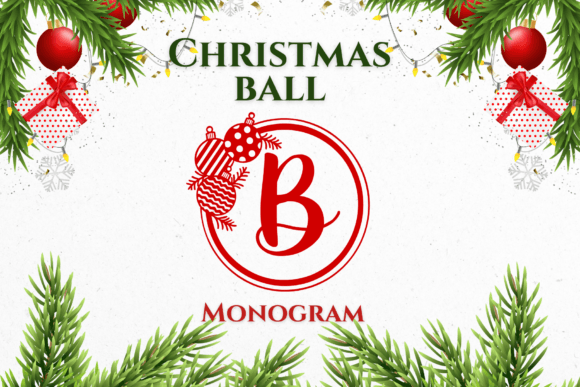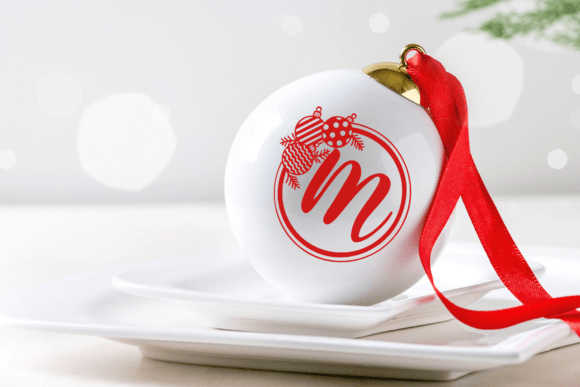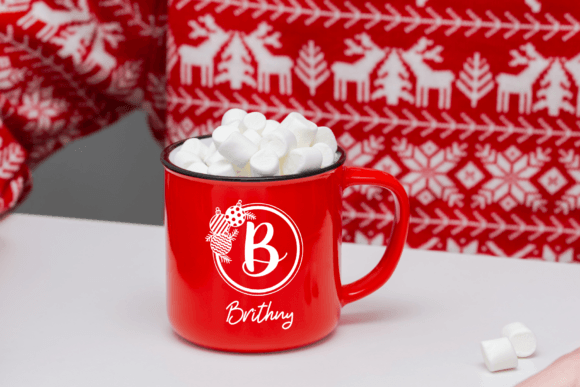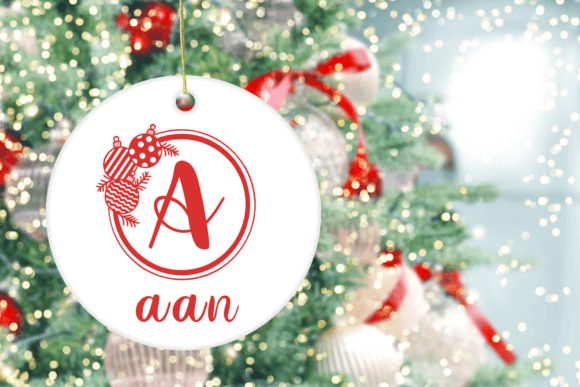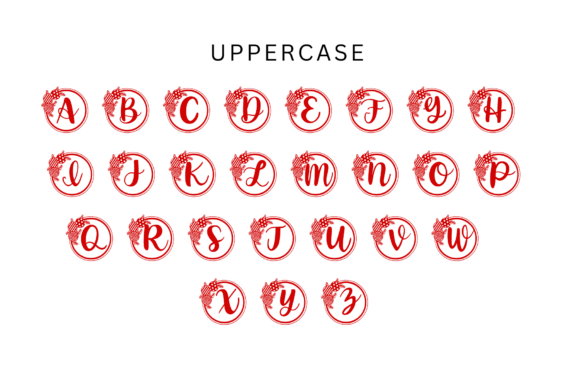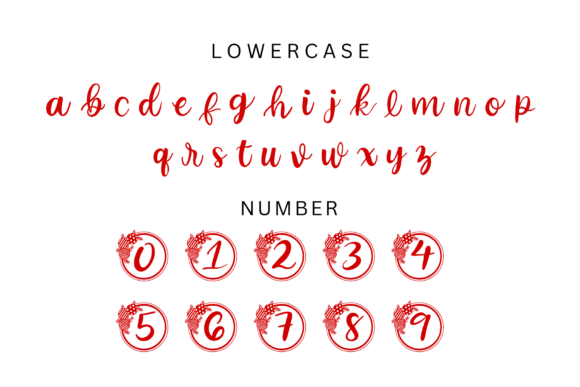
Introduction to Christmas Balls Monogram Font
Christmas Balls is a cute Christmas monogram font.
It embodies playfulness and authenticity and is the perfect choice for all your favorite projects, or even for blog posts, logos, branding, ads, invitations, greeting cards, planners, photo albums, decorations, and much more Add it to any of your designs, and enjoy the results.
Key Features of Christmas Balls Monogram Font
Why Choose Christmas Balls Monogram Font?
Christmas Balls Monogram Font offers exceptional quality and versatility, making it a valuable addition to your design toolkit. Whether you’re creating for personal projects or commercial use, Christmas Balls Monogram Font delivers professional results.